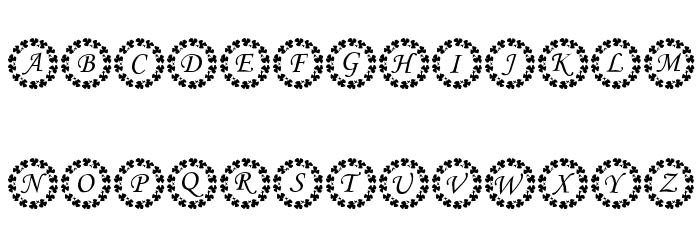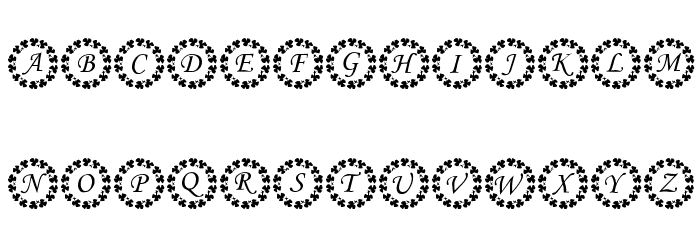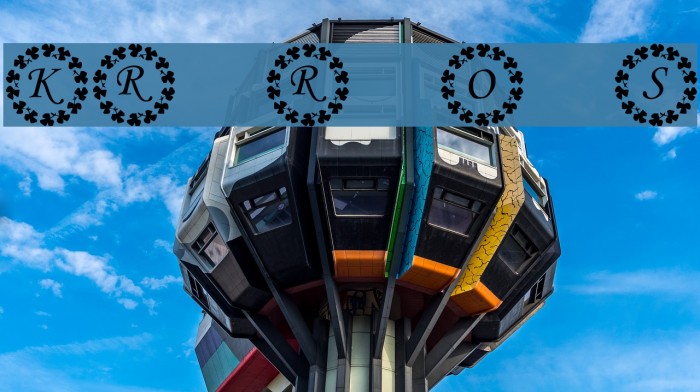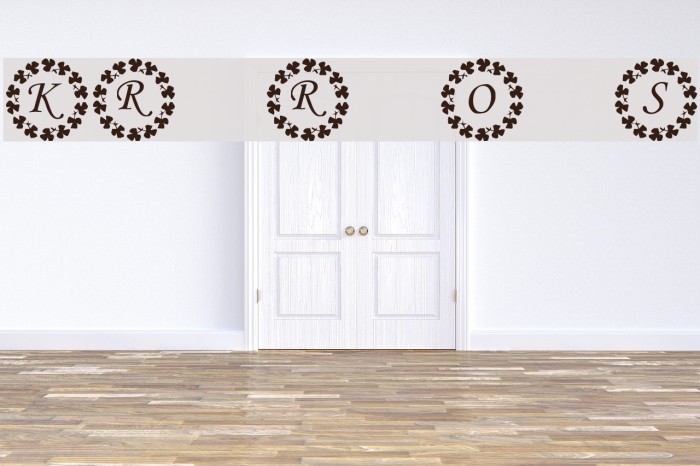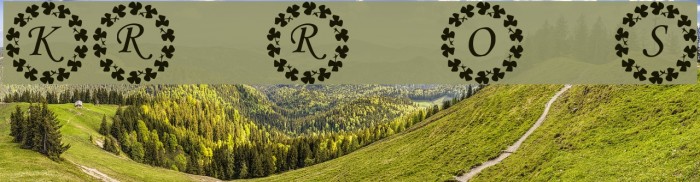
KR Ring O' Shams Font
This decorative font features uppercase and lowercase letters encased in circular frames adorned with a pattern of small, symmetrical floral motifs. The letters themselves are serif, with a classic and elegant style, providing a striking contrast to the playful and ornate borders. The combination of the serif typography with the decorative floral circles creates a unique and eye-catching design, suitable for projects that require a touch of sophistication and whimsy. The font maintains a consistent size and spacing, ensuring readability while emphasizing its decorative elements.
A decorative serif font with letters encased in floral-patterned circles.
- Proposed Projects: Ideal for wedding invitations, greeting cards, decorative posters, and branding that requires a blend of elegance and playfulness.
- Use Case: Headlines, Logos, Decorative text